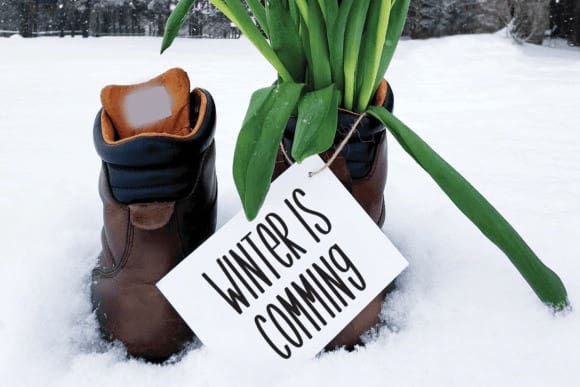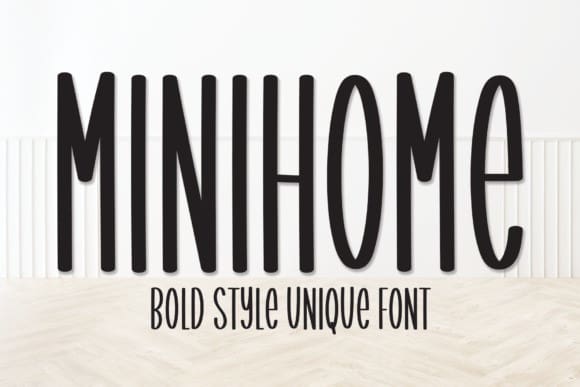
Minihome Display Font
Minihome Display Font, This font looks natural, stylish, and perfect for any extraordinary project that requires a handwritten feel. Its versatile style looks lovely on wedding invitations, thank you cards, quotes, greeting cards, logos, business cards, and every other design which needs a customized touch.